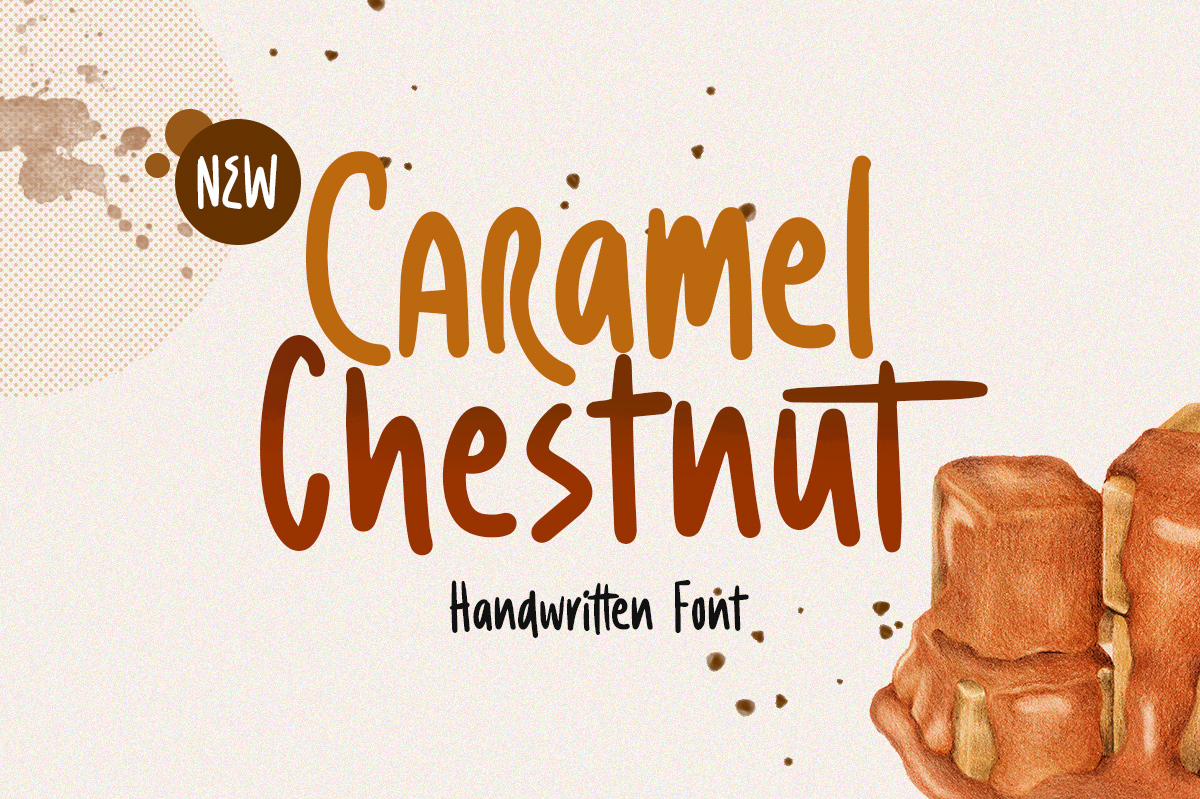
Caramel Chestnut Font
Caramel Chestnut Font is widely used in cozy café branding, autumn-themed marketing, warm bakery signage, seasonal product packaging, comfort food restaurants, artisanal chocolate labels, harvest festival materials, and inviting hospitality communications.
Caramel Chestnut Font is an exciting typeface that wraps every design in warmth and sweet comfort with its rich character and inviting appeal. This font embodies coziness, seasonal charm, and sweet indulgence, making it perfect for brands that want to convey warmth, comfort, and delicious satisfaction in their heartwarming visual communications.
The Caramel Chestnut Font family includes Regular, Bold, Light, Italic, Sweet, Cozy, Condensed, and Autumn variants. This warm collection allows designers to create comforting typographic experiences that maintain seasonal consistency while offering sweet flexibility for various hospitality and comfort-focused applications.
The distinctive warmth of Caramel Chestnut Font lies in its ability to evoke the sweet richness of caramel and the cozy comfort of autumn chestnuts through carefully crafted letterforms that seem to glow with golden warmth. Each character maintains the rounded comfort and organic texture that reflects the natural sweetness of seasonal treats and comfort foods. The font's inviting curves and warm proportions create visual comfort that captures the essence of seasonal celebrations and sweet indulgence.
Seasonal businesses and comfort food establishments choose Caramel Chestnut Font for its power to communicate genuine warmth and sweet satisfaction. The typeface works beautifully in autumn festival branding, seasonal café communications, artisanal confectionery marketing, and comfort food restaurant materials. Its warm aesthetic appeals to audiences seeking seasonal comfort, sweet treats, and the cozy satisfaction of traditional autumn flavors.
The seasonal craftsmanship of Caramel Chestnut Font includes warm variations and sweet textures that enhance the natural comfort essential to seasonal branding. These cozy features ensure that text maintains the inviting warmth and sweet character that defines authentic comfort food communication while meeting professional standards for commercial applications in the hospitality, confectionery, and seasonal retail industries.